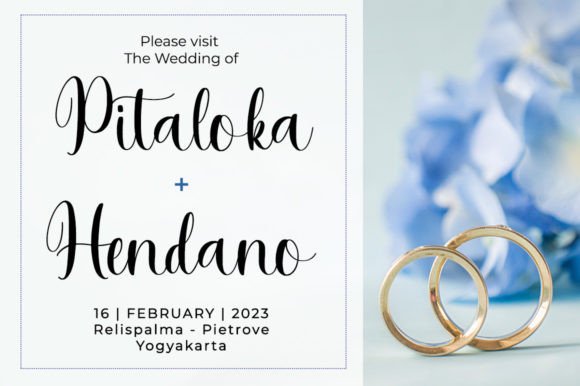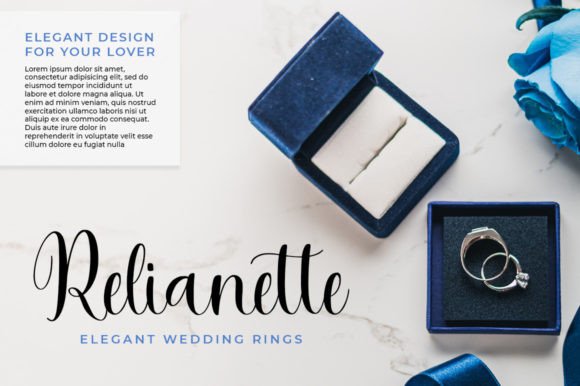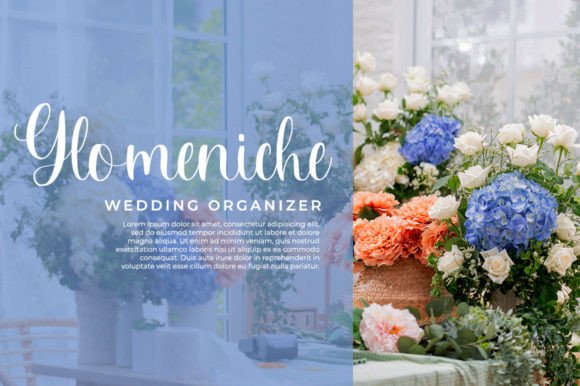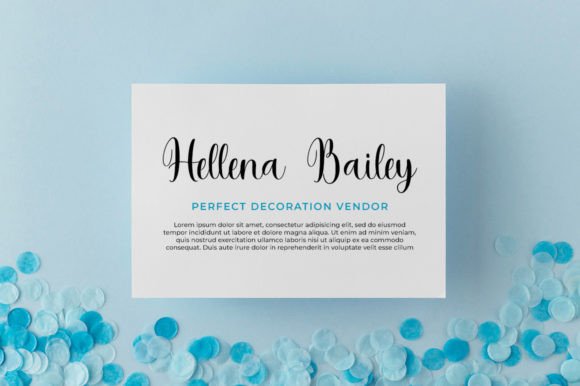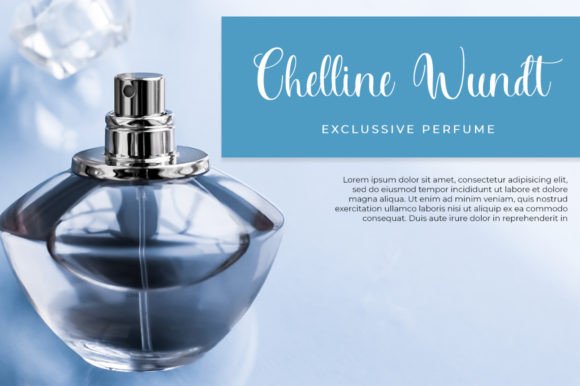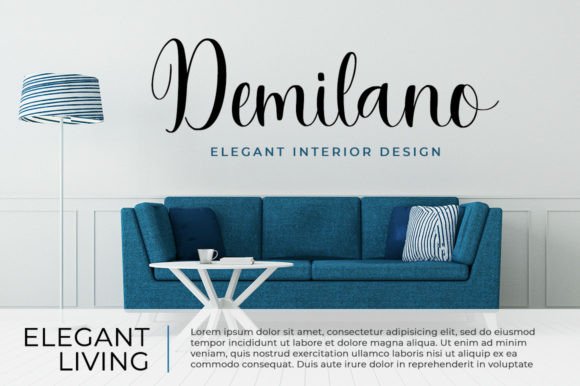
Introducing Chelafina Script: Elevate Your Designs with Elegance and Sophistication
In the world of typography, a font can make or break the aesthetic of a design project. For designers and crafters looking to add a touch of elegance, class, and modernity to their work, Chelafina Script is an exceptional choice. This beautiful script font is designed to bring a personal touch to your latest art project, making it perfect for a wide range of applications.
The Beauty of Chelafina Script
Chelafina Script is a stylish font style that boasts an elegant and sophisticated look. Its gorgeous typographic features make it an ideal choice for designers who want to create stunning visual content. Whether you’re working on a logo, branding, invitation, stationery, wedding design, social media post, or any other project that requires a touch of handwriting elegance, Chelafina Script is the perfect fit.
Key Features of Chelafina Script
- Elegant and Classy Look: Chelafina Script features a sophisticated design that adds a touch of luxury to any project.
- Modern Typography: The font’s modern look makes it perfect for designers who want to create fresh and contemporary visual content.
- Handwriting Taste: Chelafina Script offers a beautiful handwriting taste that is perfect for projects that require a personal touch.
- Versatile: The font is suitable for a wide range of projects, including logos, branding, invitations, stationery, wedding designs, social media posts, and more.
Chelafina Script is designed to meet the needs of designers and crafters who want to create stunning visual content. The font’s elegant and sophisticated look makes it perfect for:
- Logos and Branding: Create a lasting impression with a custom logo that exudes elegance and sophistication.
- Invitations and Stationery: Add a touch of luxury to your invitations, business cards, and other stationery.
- Wedding Designs: Make your wedding designs truly special with Chelafina Script’s elegant and romantic look.
- Social Media Posts: Elevate your social media posts with a font that is both modern and sophisticated.
Why Choose Chelafina Script?
With so many fonts available, why choose Chelafina Script? Here are just a few reasons:
- Unique and Exclusive: Chelafina Script is a unique and exclusive font that will make your designs stand out.
- High-Quality: The font is designed to deliver high-quality results, ensuring that your designs look professional and polished.
In conclusion, Chelafina Script is a stylish font style that offers an elegant, classy, and modern look. Its gorgeous typographic features make it perfect for a wide range of projects, from logos and branding to invitations and social media posts. For designers and crafters looking to elevate their designs with a touch of sophistication, Chelafina Script is an exceptional choice.